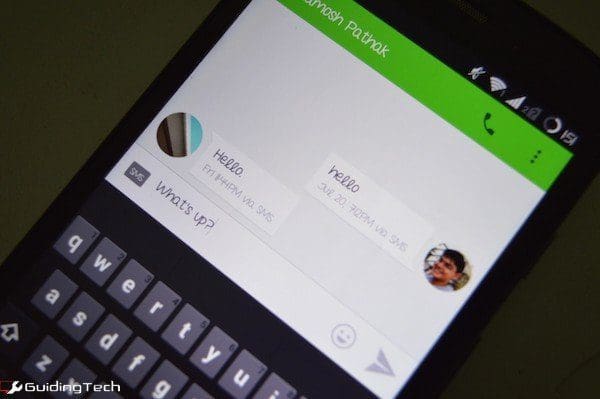
I’m a fan of Android’s default Roboto font. It’s come a long way and with Android L it’s only getting better. But the beauty of Android is that you’re allowed to change stuff, for better or for worse.
There are legitimate reasons you might want to change fonts on your Android phone. If you’re using a Samsung phone you might want to switch to Roboto, or you might be tired of using the same default font for years, like everyone else.
Here’s your chance to spice up your rooted Android phone’s life. And the app we’re going to talk about offers a lot of free fonts to choose from. Everything from classy sans-serifs to cursive to downright funky fonts. As your phone is rooted, the app allows you to change fonts on a per app or system wide basis as well.
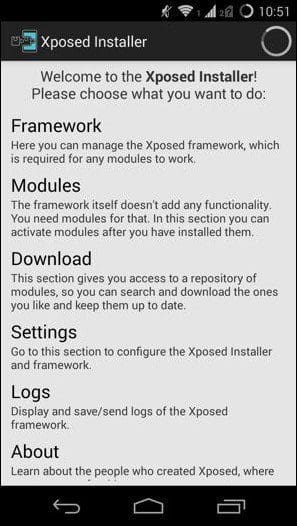
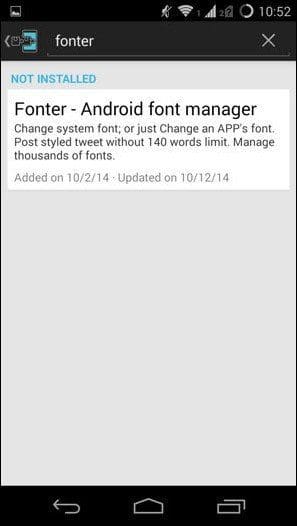
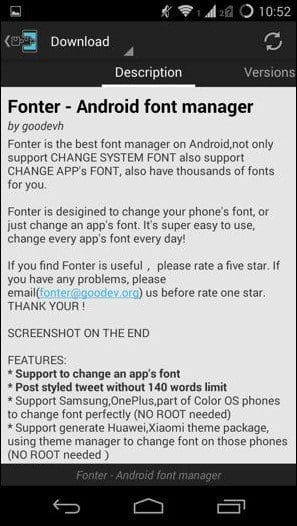
How To Use Fonter To Change Fonts On A Per App Or System Basis
After the phone is rebooted, find the Fonter app from your app drawer and open it. The homescreen will list all the available fonts for different languages.
Use the Search feature to look for something specific.
When you find a font you like, tap the Download button.
Once the font is downloaded, the app will ask you if you want to apply it to a specific app or system wide.
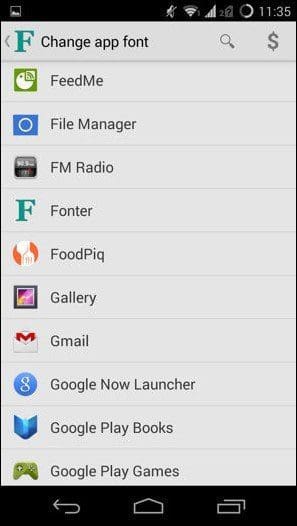
If you choose per app, select the app you want, authenticate, and if the app is running, it will relaunch with the new fonts applied.
To enable a font system wide, you’ll need to give the app root access and then restart the phone.
Fonts for different languages: Fonter lists fonts for different languages like Korean, French, Chinese, etc. This means you’re not just limited to English when it comes to using alternate fonts.